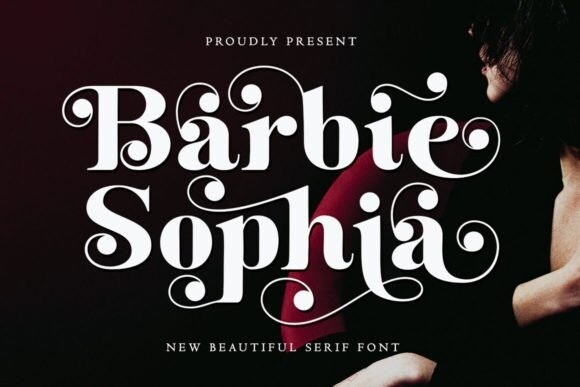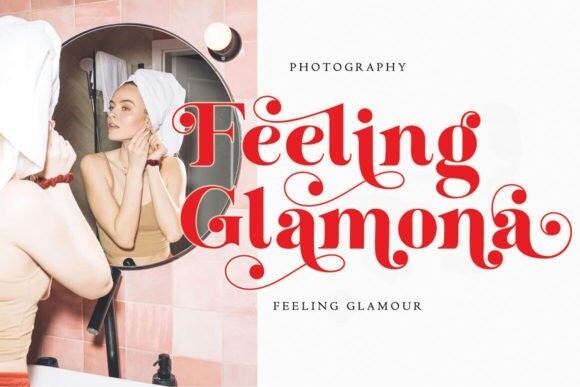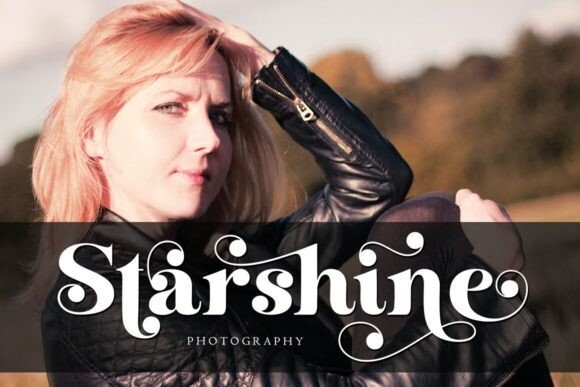
Barbie Sophia Font
Barbie Sophia Font is a beautiful and versatile serif font. This font is characterized by a serif style with a luxurious style in a modern form, but also a friendly and cheerful style in bold, Barbie Sophia has glyphs to give crafters more choices in designing. This modern style will make a design appear more classy, elegant, unique and edgy.
Barbie Sophia is a font suitable for many projects, for modern or even retro vintage designs, branding, logos, crafts, stickers, sublimation, wedding invitations and much more. This font is suitable for various projects such as logos, branding, magazines, signage, fashion, and many more.